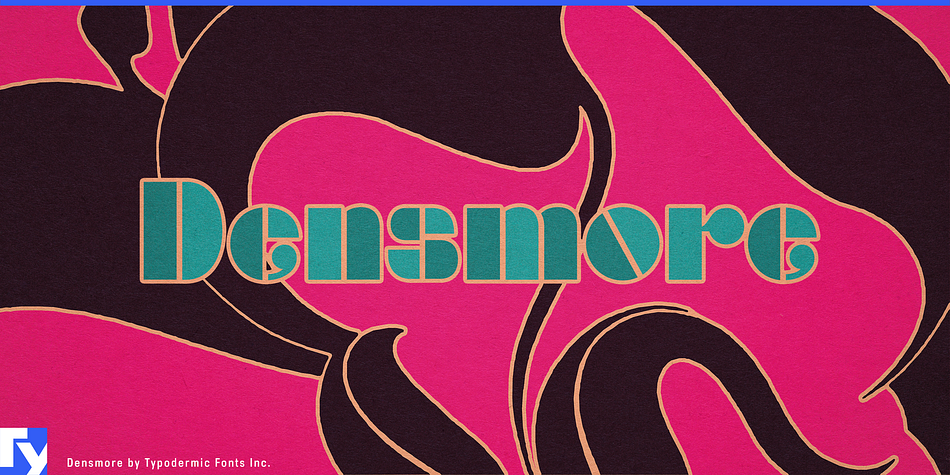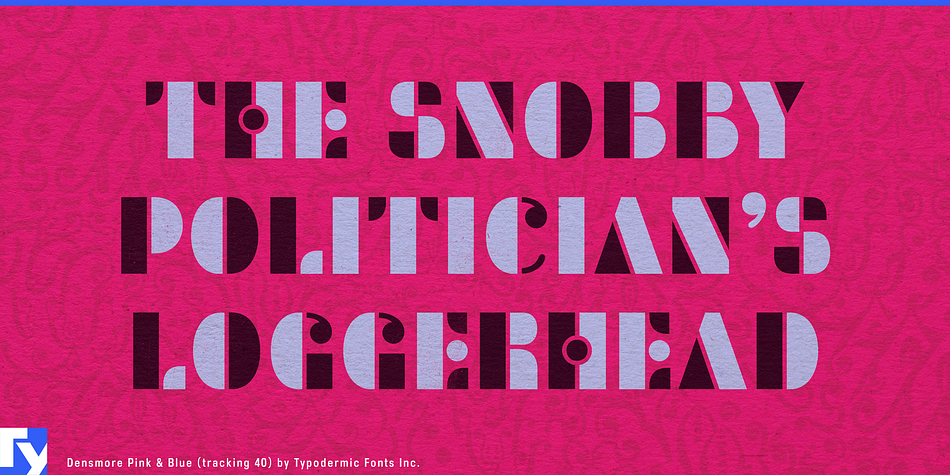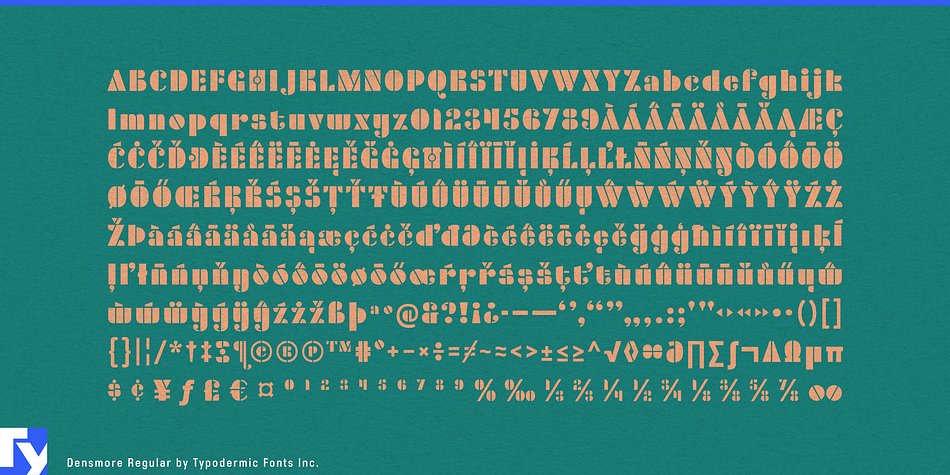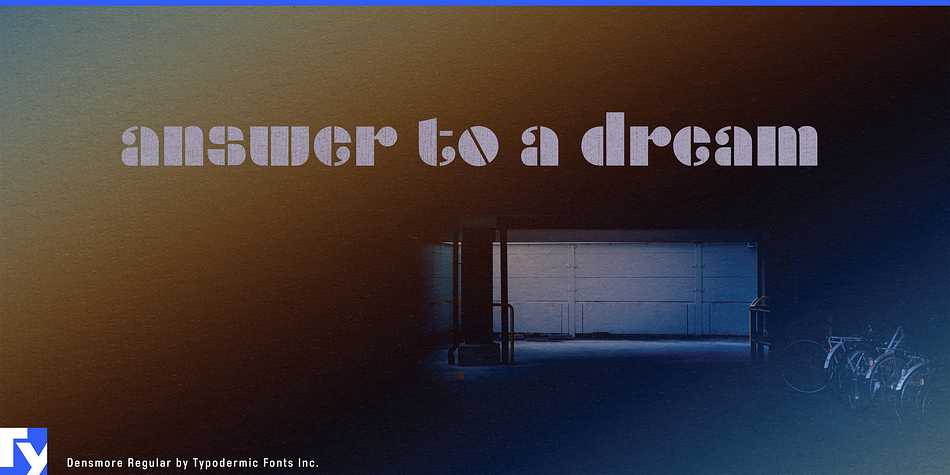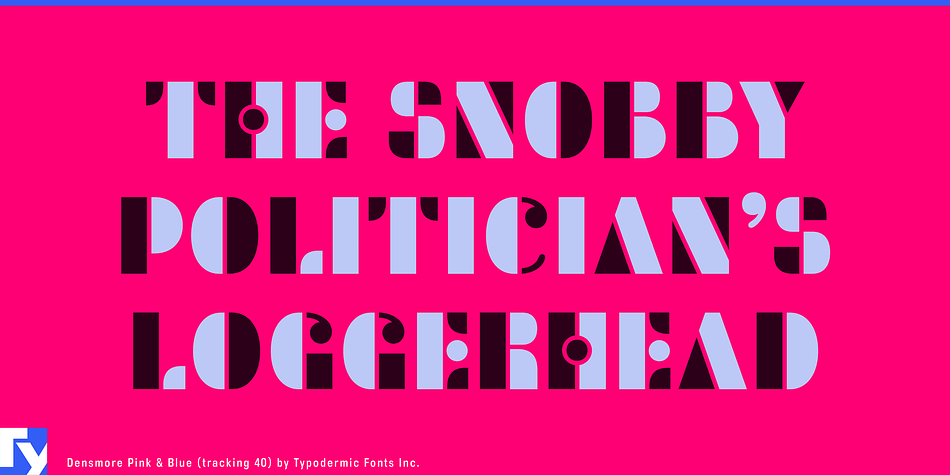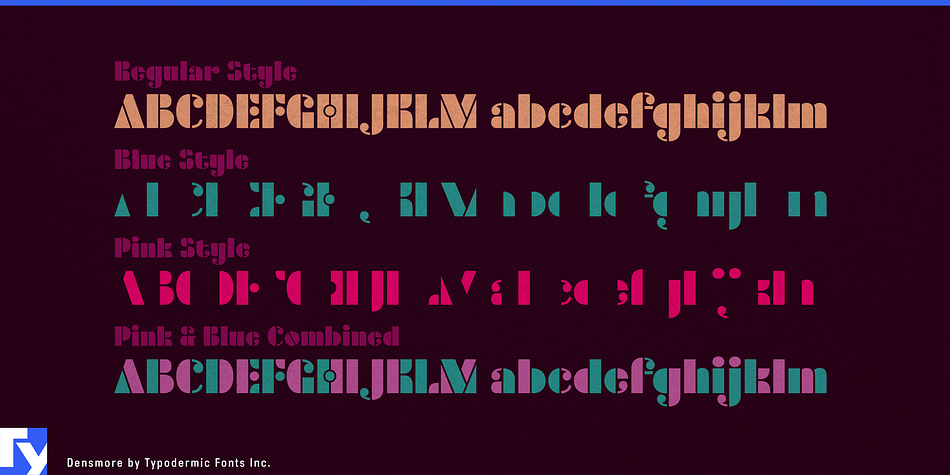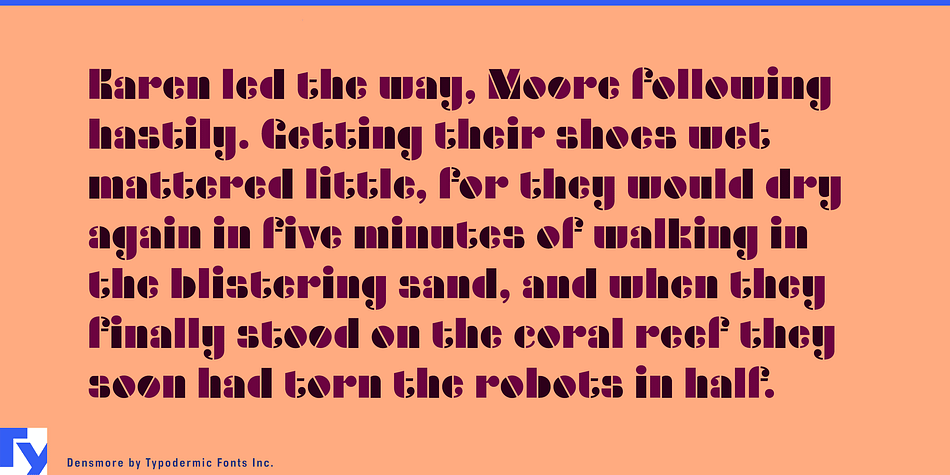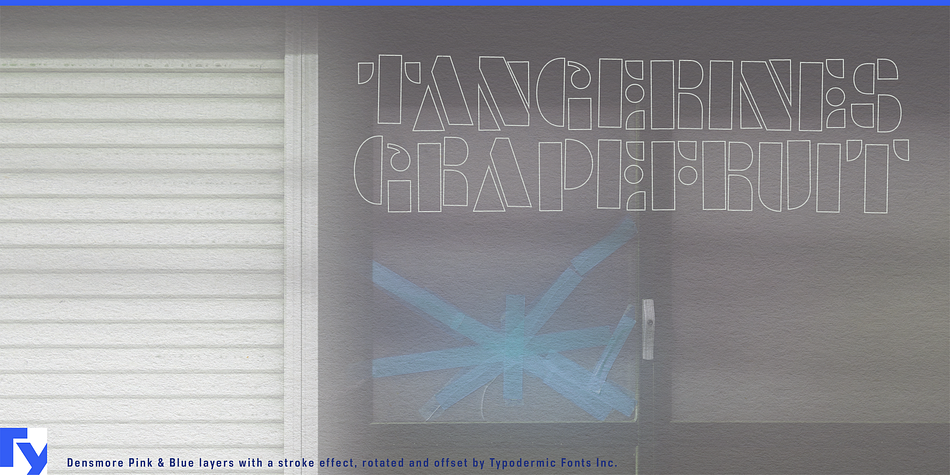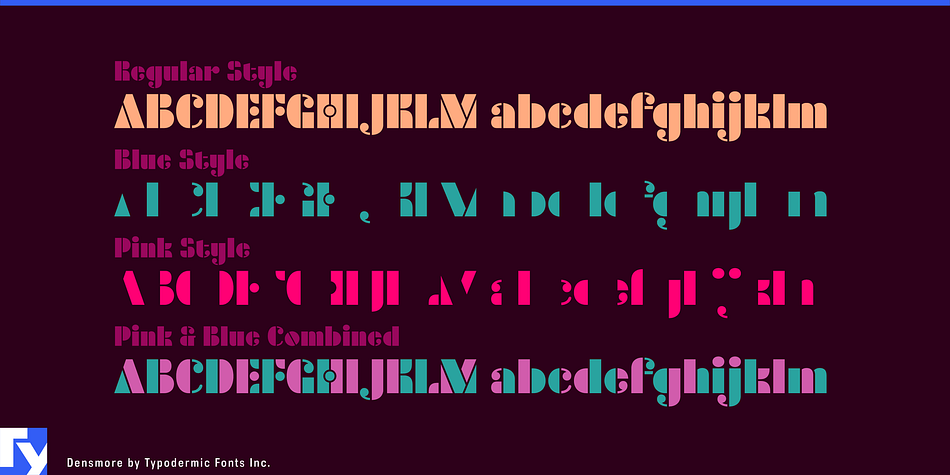
Densmore is a stencil and art deco font family. This typeface has three styles and was published by Typodermic Fonts Inc.
While Josef Albers was teaching at the Bauhaus in the 1920’s he developed the concept of using geometric shapes to create abstract alphabets such as Schablonenschrift and Kombinationsschrift. This kicked off a trend of Art Deco stencil typefaces, notably Futura Black. In the 1960’s—a designer for Elektra Records used similar circle and rectangle shapes the create a logo for the rock band, The Doors. This hand-drawn logotype has inspired a typeface called Densmore. In applications which support ligatures, a double lowercase o combination will automatically be replaced by a mirrored oo combo. There are 3 styles of Densmore: Regular, Blue and Pink. The Blue and Pink styles can be used to create layer effects: change colors, offset, experiment.